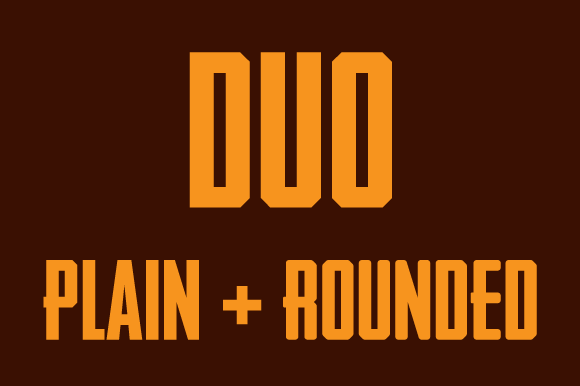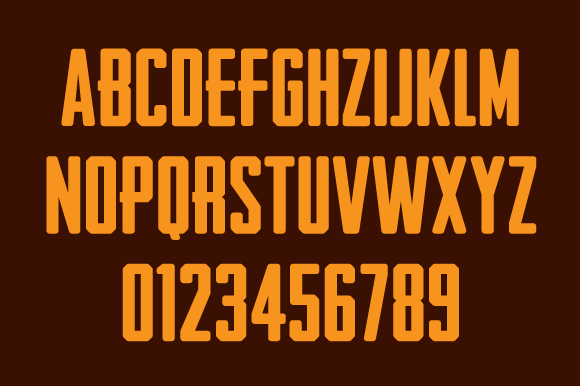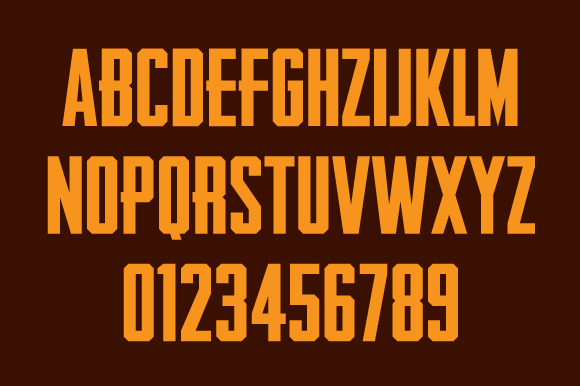
Introducing Defectible Font: The Bold, Condensed, and Modern Style Sans Font
Are you tired of using the same old fonts for your design projects? Look no further! Defectible Font is here to revolutionize the way you approach typography. This bold, condensed, and modern style sans font is perfectly suited for a large number of projects, and its playful look and feel will surely capture your heart.
What is Defectible Font?
Defectible Font is a unique and stylish font that is designed to make a statement. Its bold and condensed structure makes it perfect for headlines, titles, and other display text, while its modern style ensures that it stays relevant and fresh. Whether you’re working on a branding project, a website, or a craft project, Defectible Font is sure to add a touch of personality and flair.
Key Features of Defectible Font
- Bold and Condensed: Defectible Font is designed to make a statement with its bold and condensed structure. It’s perfect for creating eye-catching headlines and titles that demand attention.
- Modern Style: With its clean lines and modern aesthetic, Defectible Font is perfect for projects that require a fresh and contemporary look.
- Playful Look and Feel: Defectible Font has a playful and energetic vibe that’s sure to add a touch of personality to your projects.
- Highly Versatile: Defectible Font can be used for a wide range of projects, from branding and advertising to web design and crafting.
Why Choose Defectible Font?
So why choose Defectible Font over other fonts? Here are just a few reasons:
- Unique and Memorable: Defectible Font is a one-of-a-kind font that’s sure to make your project stand out from the crowd.
- Easily Readable: Despite its bold and condensed structure, Defectible Font is still highly readable, making it perfect for use in a variety of contexts.
- Customizable: Defectible Font can be easily customized to fit your project’s specific needs, from adjusting the font size to experimenting with different colors and textures.
How to Use Defectible Font
Defectible Font can be used in a variety of ways, from digital projects to print materials. Here are a few ideas to get you started:
- Branding and Advertising: Use Defectible Font to create bold and eye-catching logos, billboards, and ad campaigns.
- Web Design: Add a touch of personality to your website with Defectible Font, perfect for use in headlines, titles, and other display text.
- Crafting and DIY: Use Defectible Font to add a personal touch to your craft projects, from handmade cards to DIY signs and decorations.
Tips and Tricks for Working with Defectible Font
Here are a few tips and tricks to help you get the most out of Defectible Font:
- Experiment with Font Sizes: Defectible Font looks great in a variety of font sizes, from large and bold to smaller and more subtle.
- Play with Color and Texture: Don’t be afraid to experiment with different colors and textures to add depth and interest to your text.
- Mix and Match with Other Fonts: Defectible Font pairs well with a variety of other fonts, so don’t be afraid to get creative and try out different combinations.
In conclusion, Defectible Font is a bold, condensed, and modern style sans font that’s perfect for designers and crafters looking to add a touch of personality to their projects. With its playful look and feel, highly versatile design, and ease of use, Defectible Font is sure to become a favorite in your font collection. So why wait? Fall in love with Defectible Font today and take your design projects to the next level!